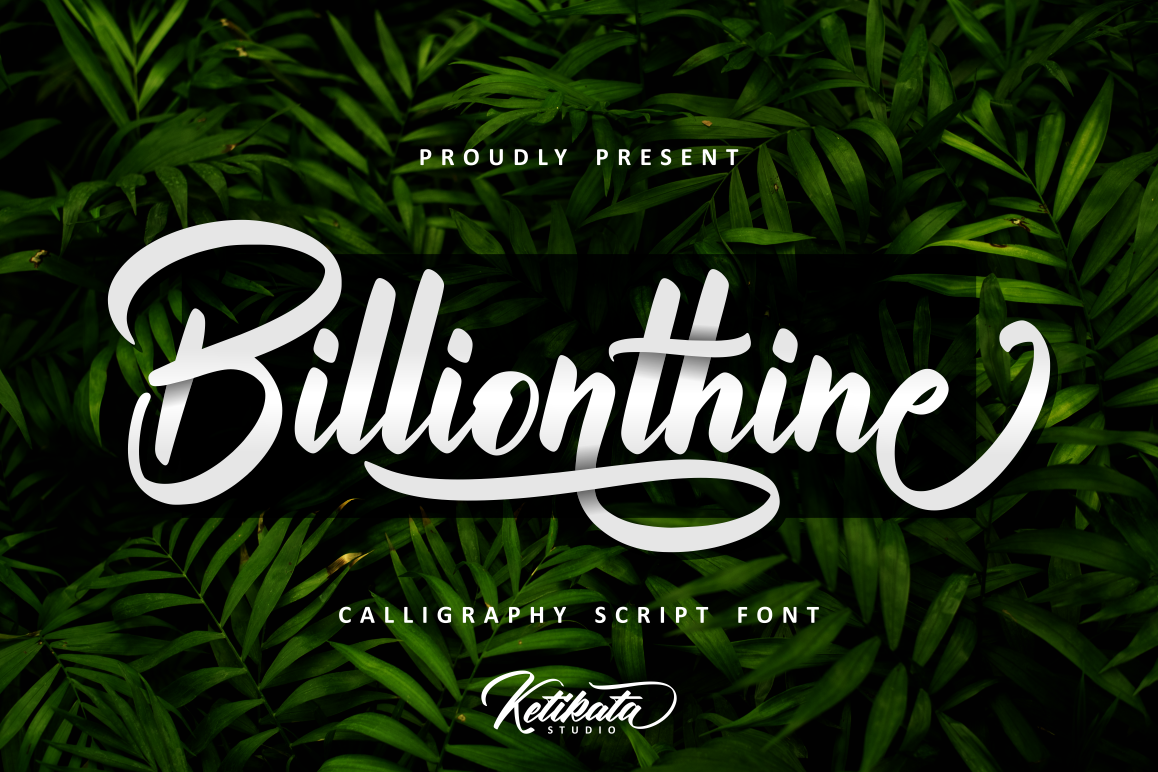
Billionthine Calligraphy Script
Introducing Billionthine!
Billionthine is a bold and strong script font. carefully crafted with calligraphy. that contains many stylistic alternate and swashes that will help you to create your own customized design.
this font has unique and perfect for branding (Logotype) and other design needs, like for quotes, merchandise, packaging, business card and many other project.
with start and ending swash, and middle swash for some letters, this is very easy to use, just rely on your creativity !This font was impressed cool and elegant.